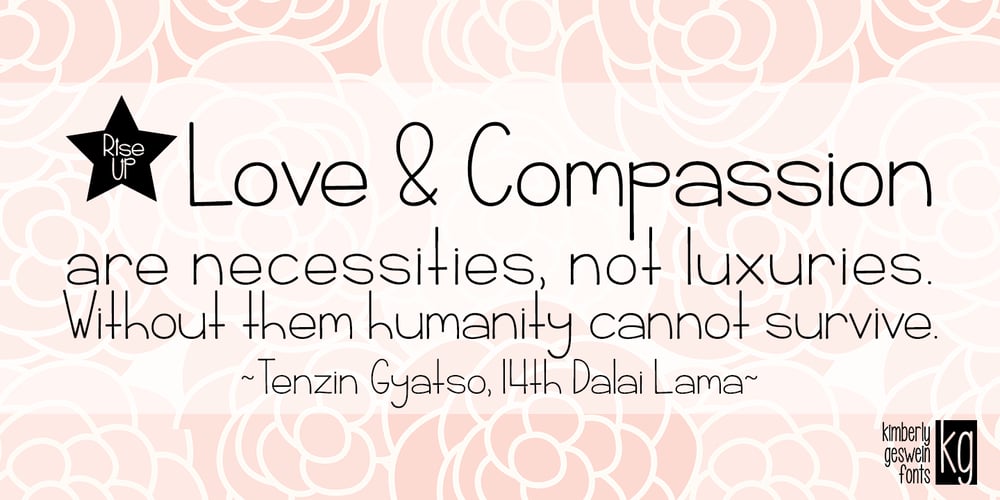
KG Rise UP Font Family was designed by Kimberly Geswein and published by Kimberly Geswein. KG Rise UP contains 1 styles and family package options. Made in collaboration with my 14-year-old daughter, this font embodies her desire for people to rise up and resist injustice in this world. The font is neat, legible, and yet slightly playful.